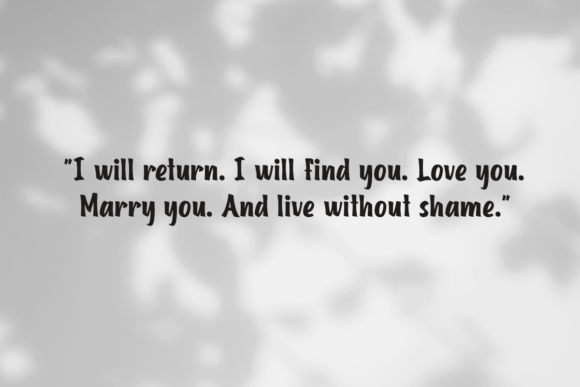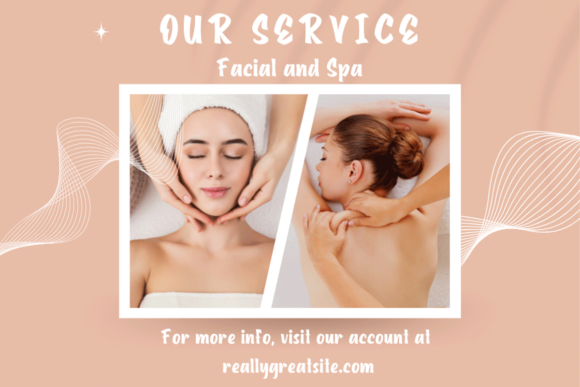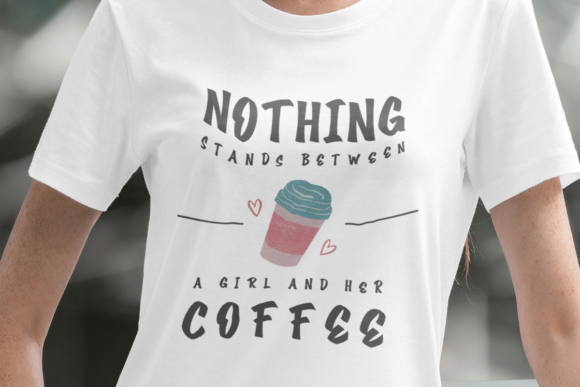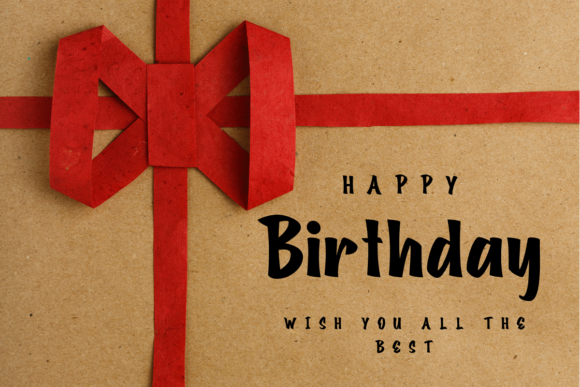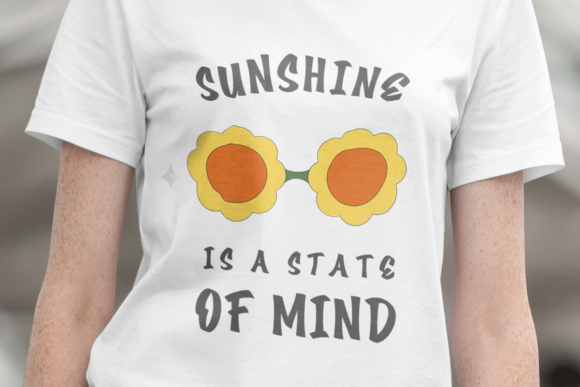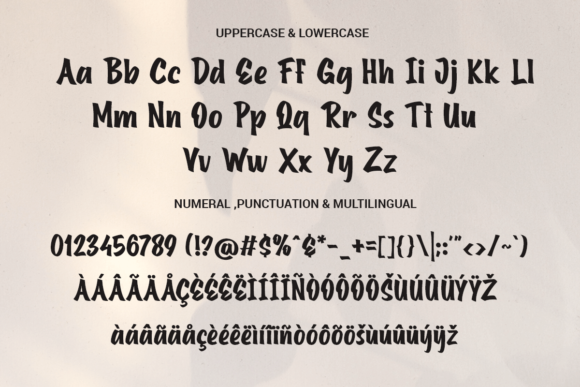
Discover the Energetic Fun of Bostana Font
I’ll never forget the time I was working on a project for a kids’ sports event, and I was struggling to find the perfect font that could capture the energetic and fun vibe I was going for. That’s when I stumbled upon Bostana Font, and it instantly became my go-to choice. In this article, I’ll share with you why I love Bostana, its features, and how to make the most of it in your designs.
An Honest Review of Bostana Font
What I Love About Bostana ✨
• ✅ Energetic and fun style that’s perfect for sports, kids, and youth designs
• ✅ Highly versatile and can be applied to various design themes
• ✅ Wide range of OpenType features, glyphs, and stylistic alternates
• ✅ Easy to read and works well for both headings and body text
• ⚠️ Limited availability of Cyrillic characters
• ⚠️ Some users may find the font too playful or childish for certain designs
The Designer Inspiration Behind Bostana
Bostana Font was designed with the intention of creating a fun, energetic, and versatile typeface that could be used in various design themes. The designer aimed to craft a font that would evoke a sense of playfulness and excitement, making it perfect for sports, kids, and youth designs.
What is Bostana Font best used for? Bostana Font is best used for designs that require an energetic and fun style, such as sports designs, kids’ and youth designs, and designs that need a playful mood.
Is Bostana Font suitable for body text? Yes, Bostana Font is easy to read and can be used for both headings and body text.